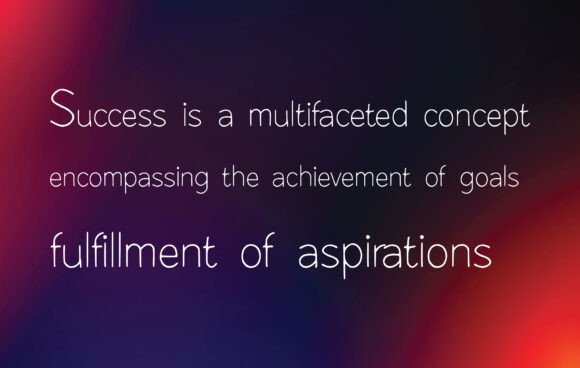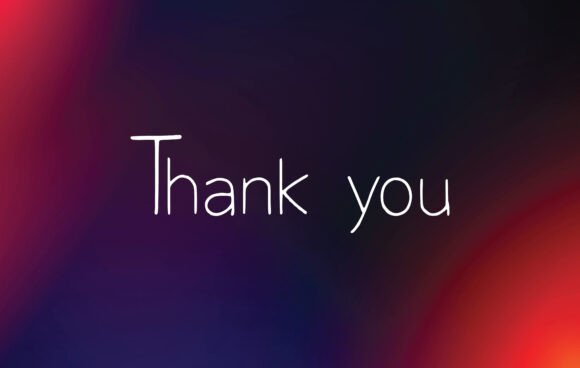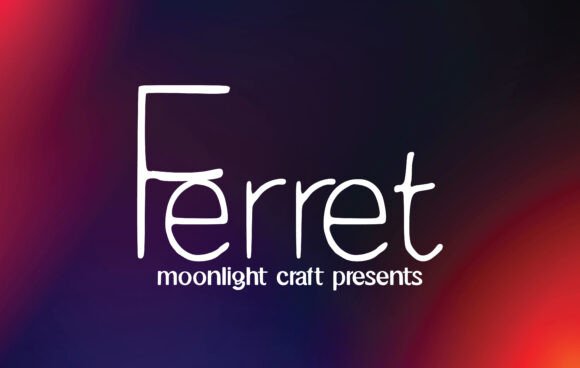
Ferret Font: Elevate Your Designs with a Lovely Handwritten Style
Are you looking for a font that can add a touch of elegance and sophistication to your designs? Look no further than Ferret Font, a beautiful handwritten font that is sure to take your creative ideas to the highest level. In this article, we’ll explore the features and benefits of Ferret Font, and why it’s the perfect choice for designers and crafters looking to create eye-catching logos, branding, and quotes.
What is Ferret Font?
Ferret Font is a lovely and beautiful handwritten font that is designed to add a personal touch to your designs. With its unique and elegant style, Ferret Font is perfect for creating a wide range of designs, from logos and branding to quotes and social media graphics. The font is carefully crafted to ensure that it is easy to read and understand, making it perfect for use in a variety of contexts.
Key Features of Ferret Font
Ferret Font has several key features that make it an excellent choice for designers and crafters. Some of its key features include:
- Unique and Elegant Style: Ferret Font has a unique and elegant style that is sure to make your designs stand out.
- Handwritten with Love: The font is carefully handwritten with love and attention to detail, giving it a personal touch.
- Easy to Read: Ferret Font is designed to be easy to read and understand, making it perfect for use in a variety of contexts.
- Versatile: The font is versatile and can be used in a wide range of designs, from logos and branding to quotes and social media graphics.
Why Choose Ferret Font?
There are many reasons why Ferret Font is an excellent choice for designers and crafters. Here are just a few:
- Create Eye-Catching Logos: Ferret Font is perfect for creating eye-catching logos that will make your brand stand out.
- Perfect for Branding: The font is ideal for use in branding, adding a personal touch to your brand’s identity.
- Add a Personal Touch to Quotes: Ferret Font is a great choice for adding a personal touch to quotes, making them more engaging and shareable.
- Easy to Use: The font is easy to use and can be easily integrated into your design workflow.
Tips for Using Ferret Font
Here are a few tips for using Ferret Font in your designs:
- Experiment with Different Sizes: Ferret Font looks great in a variety of sizes, so don’t be afraid to experiment to find the perfect size for your design.
- Pair with Other Fonts: The font pairs well with other fonts, so try pairing it with a bold font for added contrast.
- Use in Combination with Images: Ferret Font looks great in combination with images, so try using it to add a personal touch to your graphics.
In conclusion, Ferret Font is a beautiful handwritten font that is sure to take your creative ideas to the highest level. With its unique and elegant style, Ferret Font is perfect for creating eye-catching logos, branding, and quotes. Whether you’re a designer or crafter, Ferret Font is an excellent choice for adding a personal touch to your designs. So why wait? Download Ferret Font today and start elevating your designs!